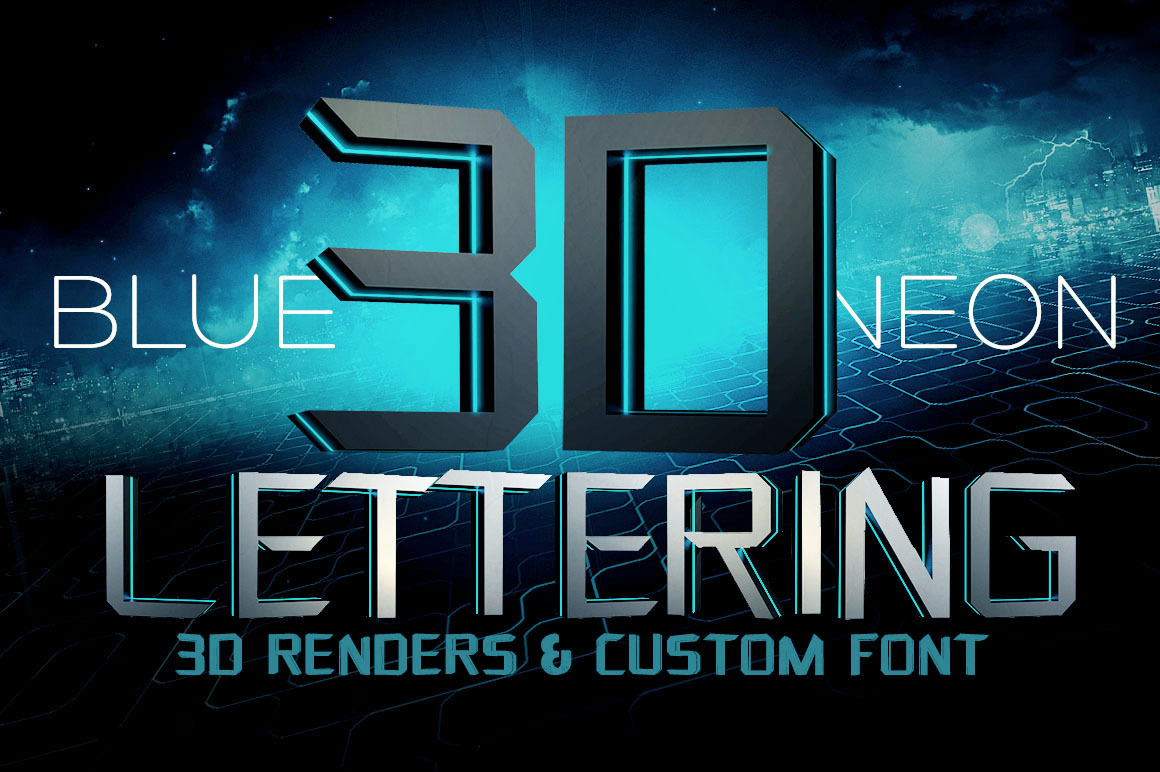
Blue Neon - 3D Lettering + Font
Hi-res 3D futuristic neon letter renders (2500x2500, 300dpi - size of letters around 1300x1500 pixels). Great for your headers or print projects. Custom font also included!